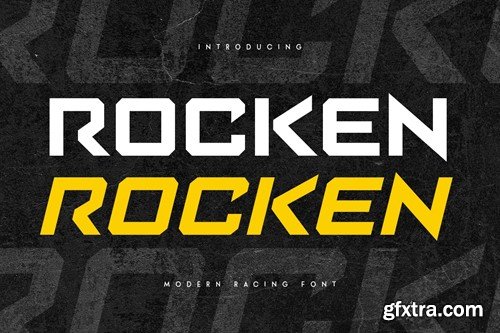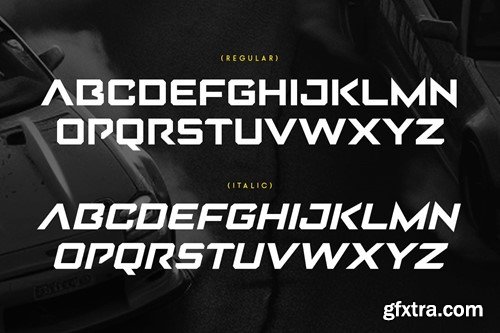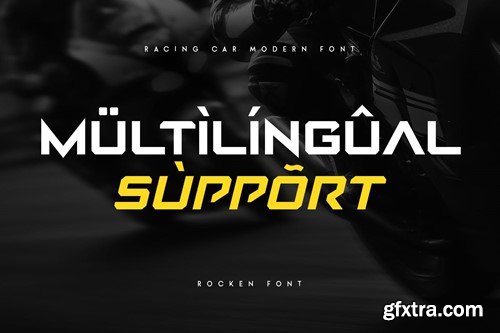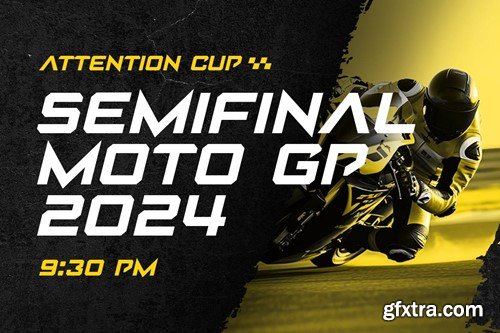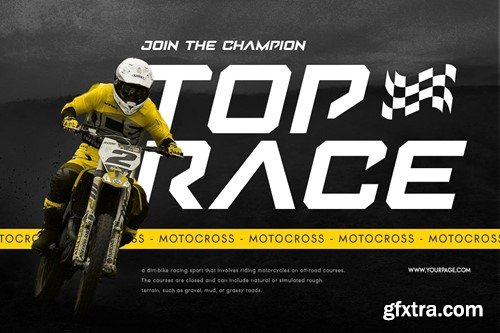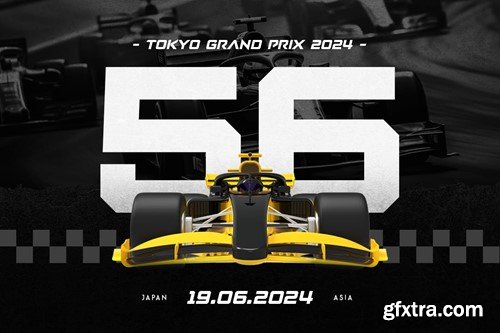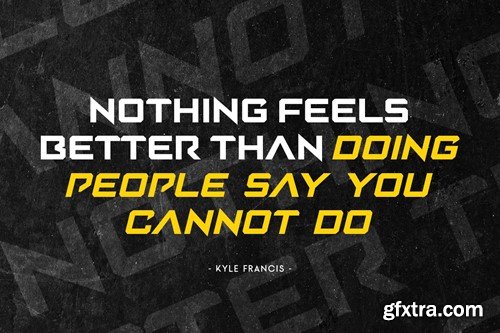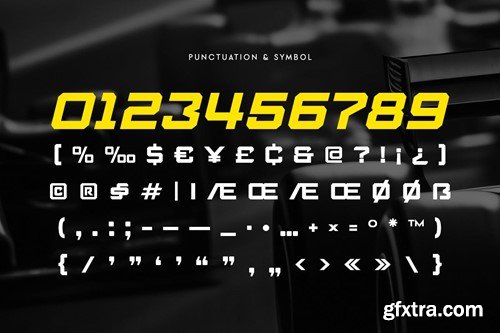
Introducing Rocken, the ultimate font for all your racing and film needs. Rocken combines the thrill of high-speed racing with the excitement of blockbuster movies, creating a dynamic and bold typeface perfect for any project. Rocken Font Features: Rev up your projects with Rocken and leave a lasting impression with its bold, fast-paced style. Perfect for headlines, posters, branding, and digital art, Rocken will make your work stand out in the fast lane. Get ready to rock your designs with Rocken!